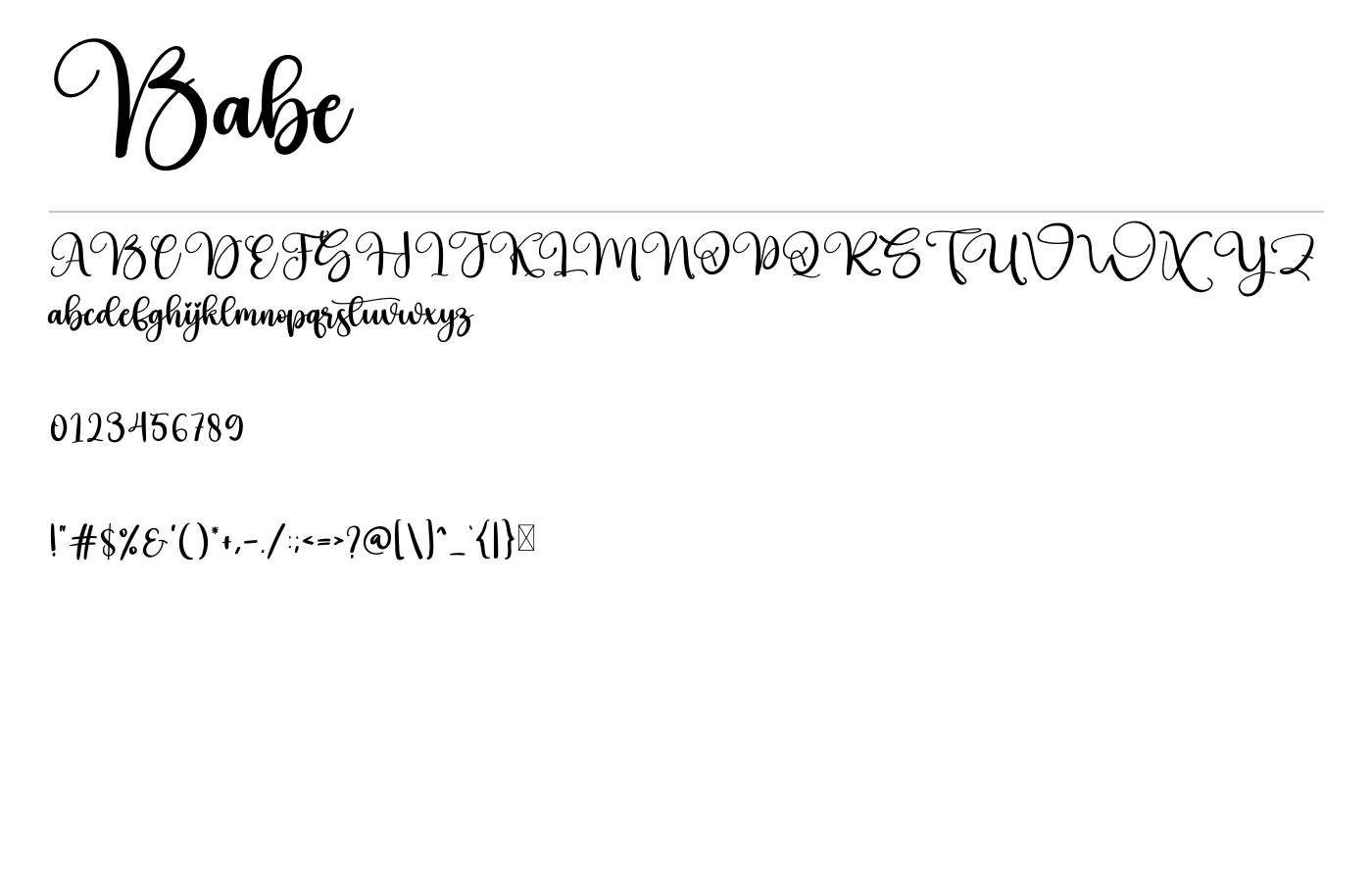
Babe Font is an elegant, decorative script typeface with flowing, calligraphic strokes and a playful, feminine charm. Its thin, graceful lines and intricate swashes make it ideal for invitations, branding, and any design that seeks a romantic yet sophisticated feel. This font shines in logos, headlines, and packaging where an artistic, stylish touch is desired.
Babe Font
About Babe Font